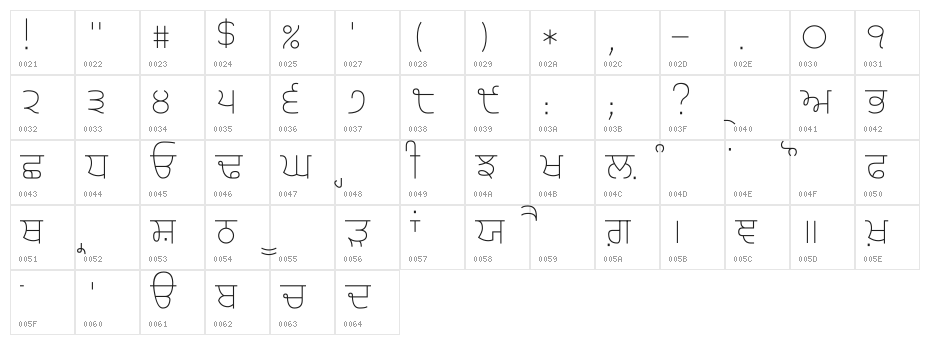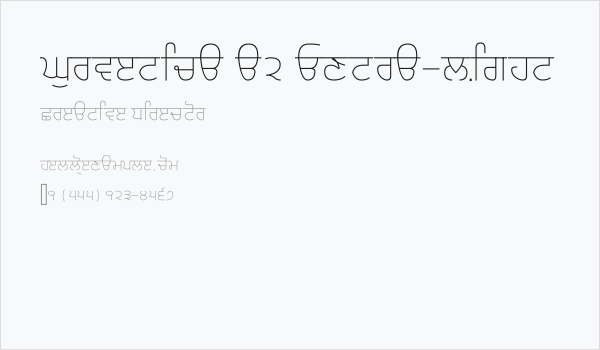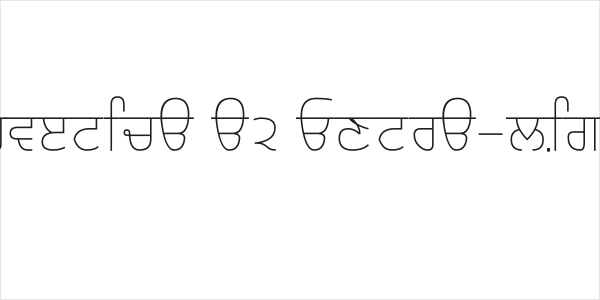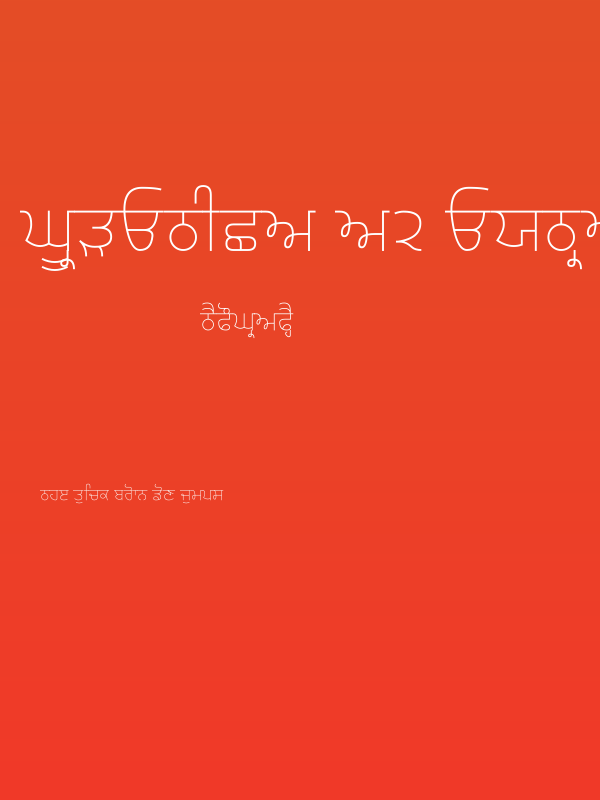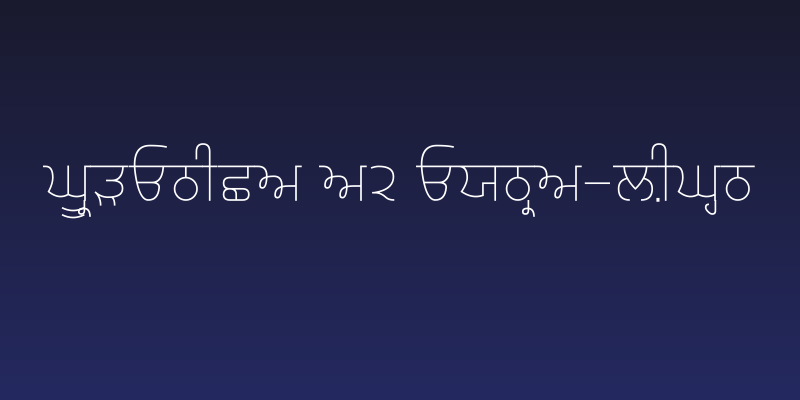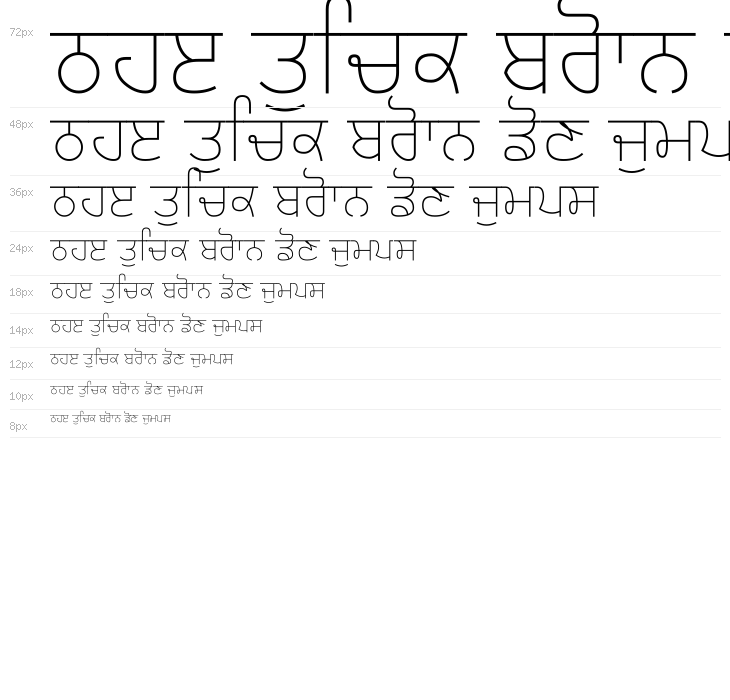
Gurvetica a2 Extra-Light Font
Gurvetica a2 Extra-Light Description
This font features a unique blend of modern and traditional elements, characterized by its clean lines and geometric shapes. The characters exhibit a distinct curvature and a balanced structure, making it suitable for both digital and print media. The design is minimalistic yet expressive, with a focus on readability and aesthetic appeal. Its extra-light weight adds a touch of elegance and sophistication, making it ideal for projects that require a subtle yet impactful typeface. The font maintains a consistent stroke width throughout, ensuring uniformity and harmony across all characters.